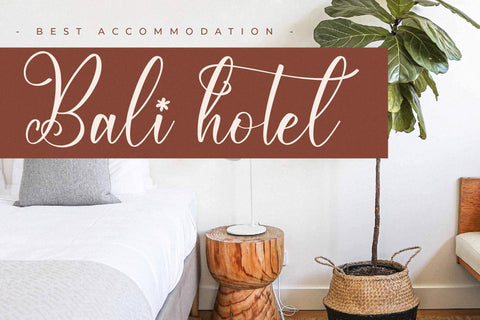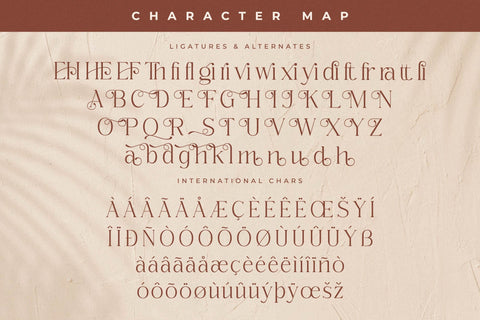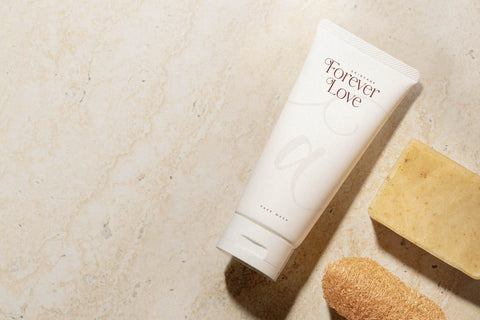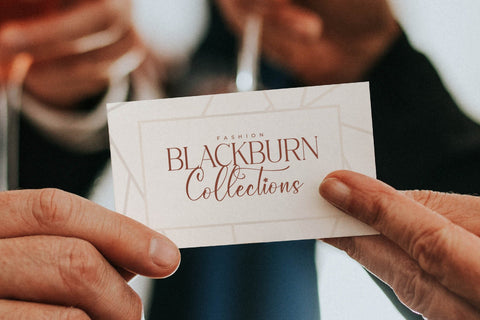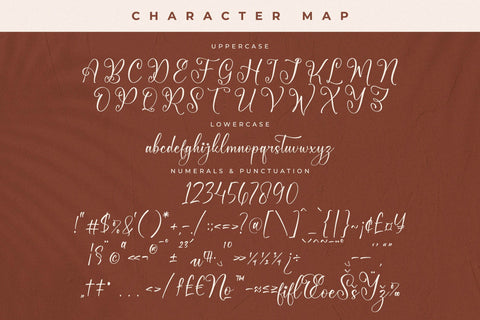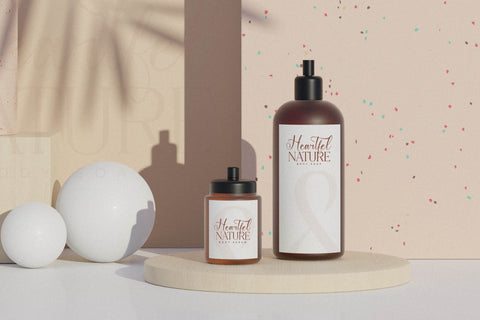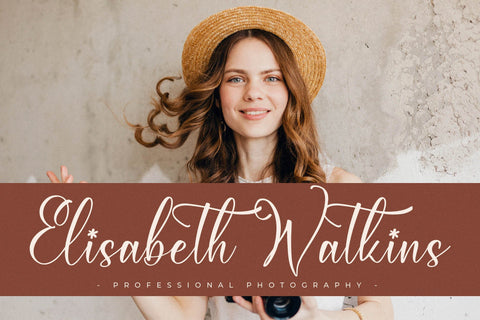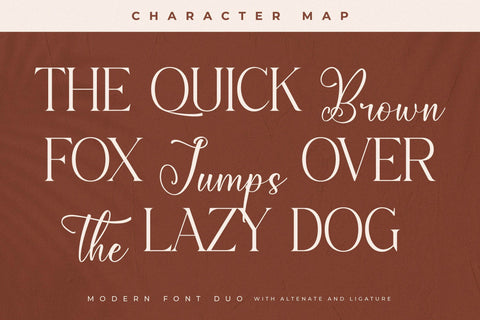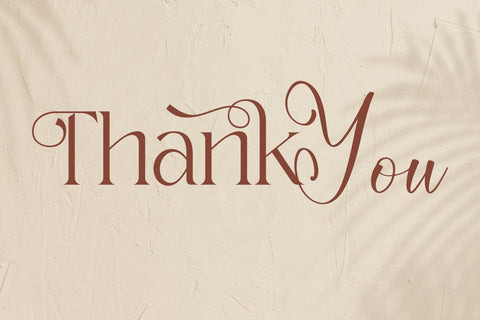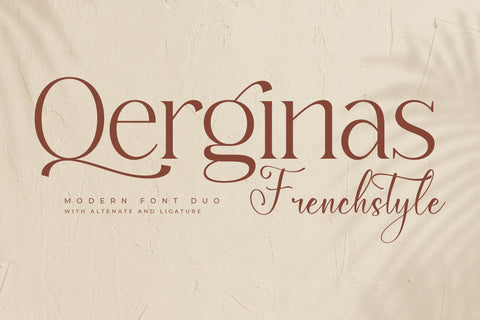
Qerginas Frenchstyle Font Duo
Proudly present Qerginas Frenchstyle Font Duo , created by Storytype,
A serif and script typeface that has own unique style & modern look.